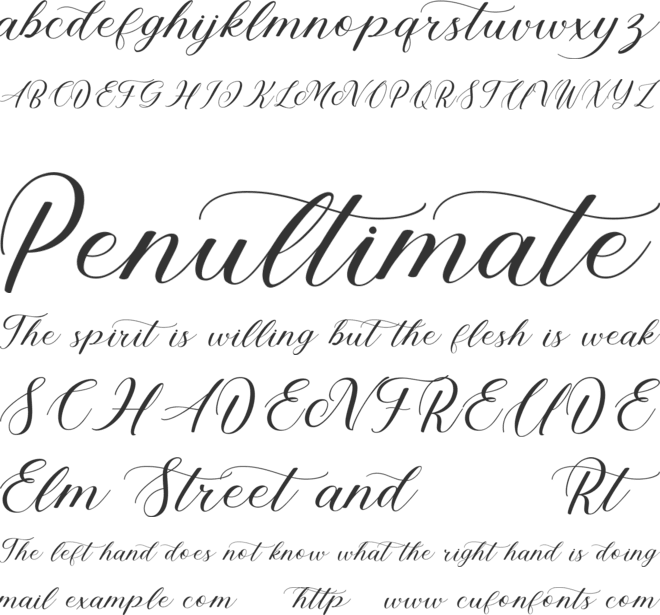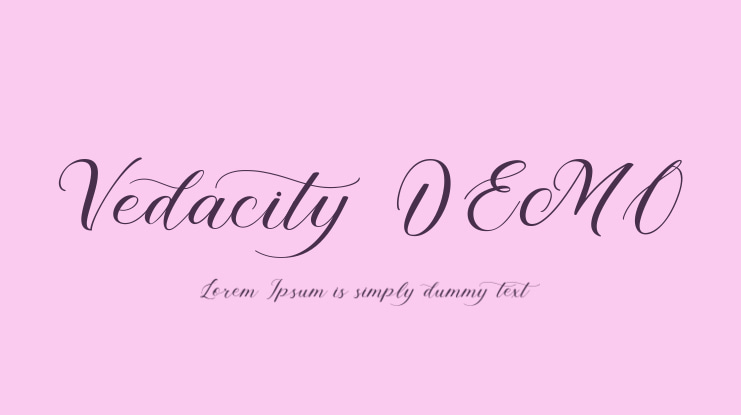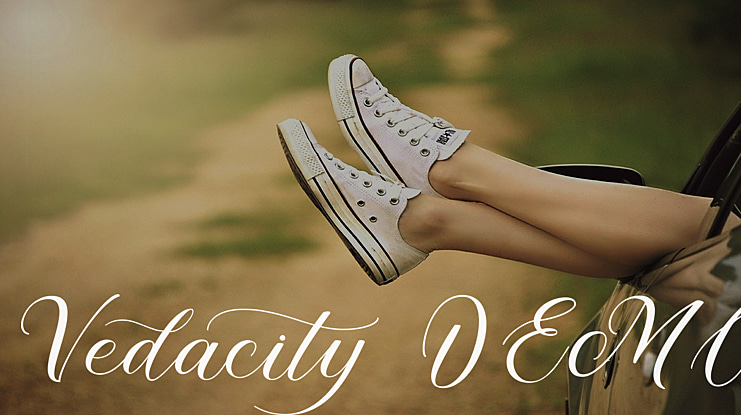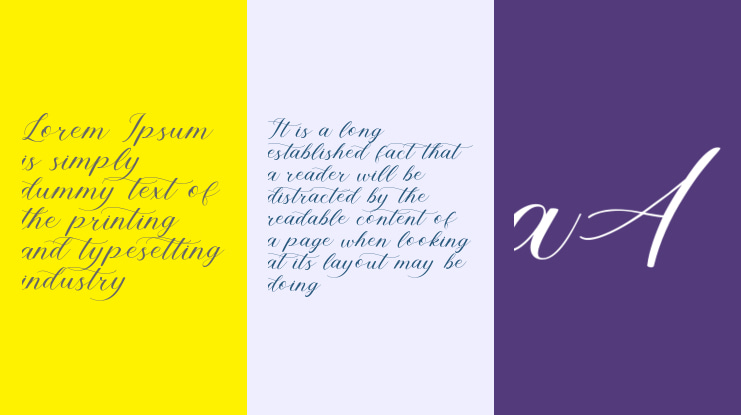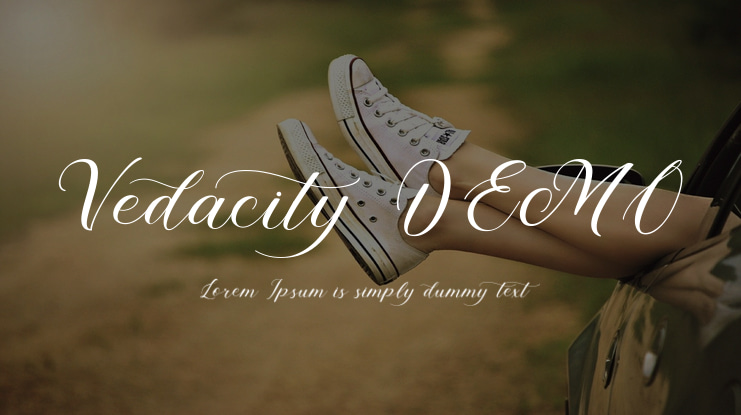
Vedacity DEMO Font
Vedacity is a sophisticated glamorous script font, with modern calligraphy style that you'll hard to resist like the nowadays trend. Inspired from the society behaviour who always craving for the trends but still want to show something different yet special from it.
Yes, that's why it came with a bunch of Stylistic Alternates of each letters because everybody loves a choices, in a pack. And also the Ligatures for every double letters to get the seamlessly handwritten looks.